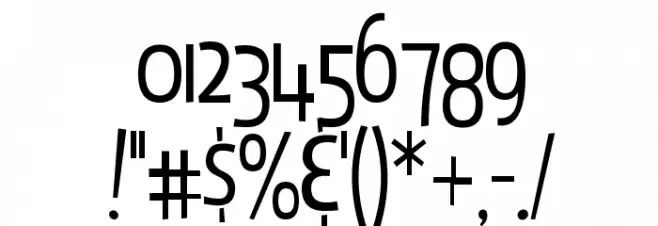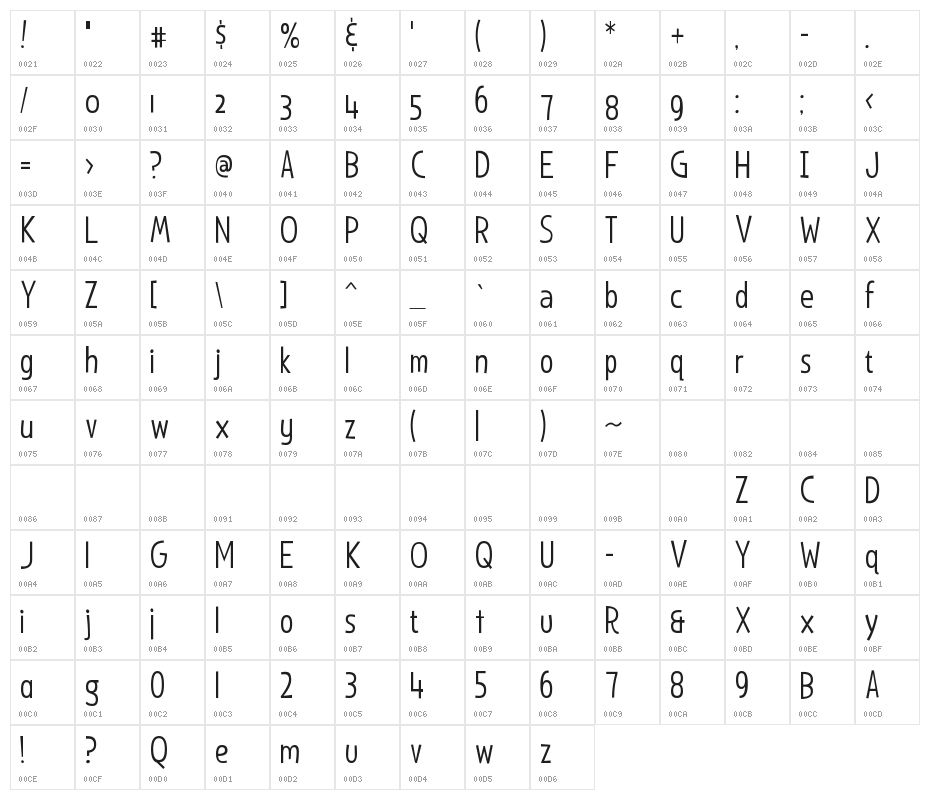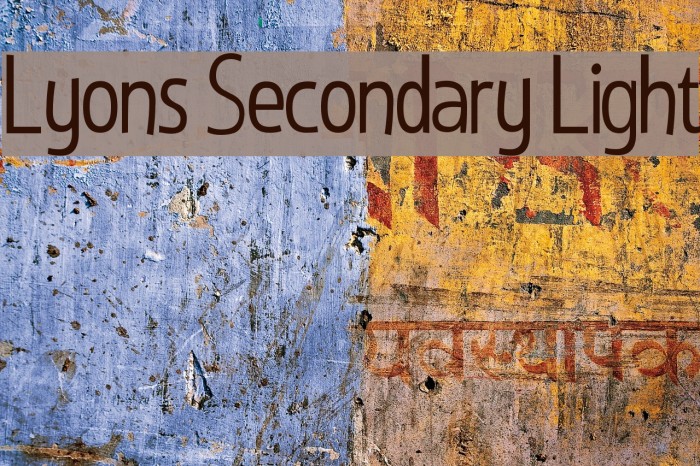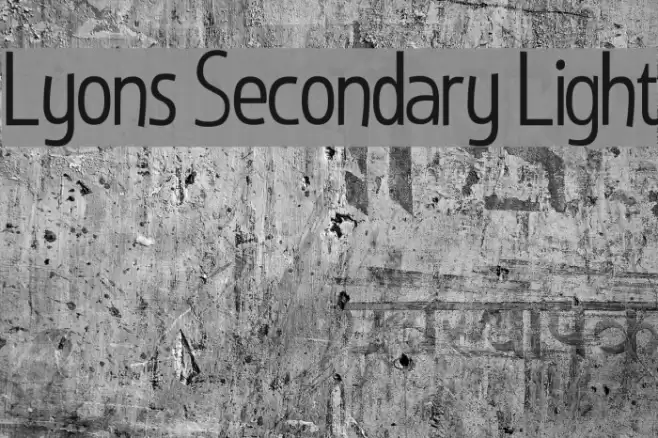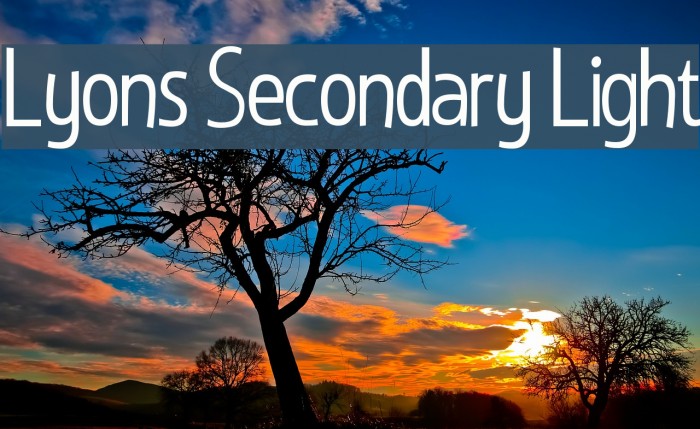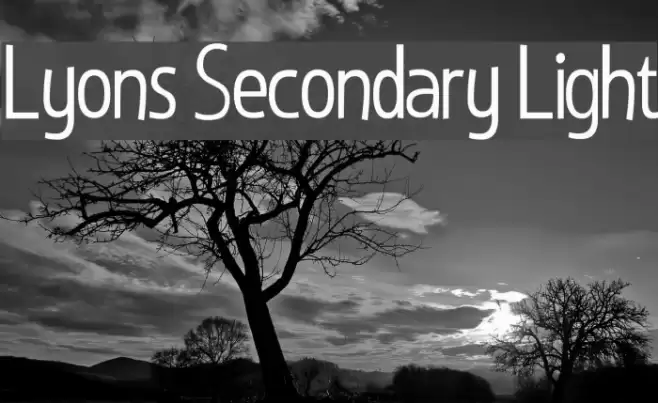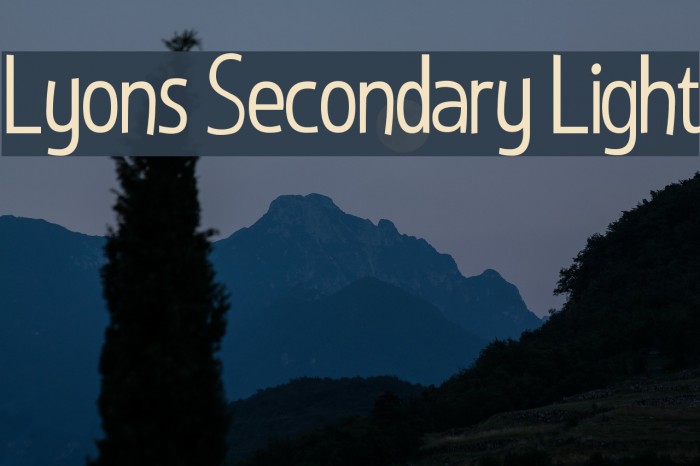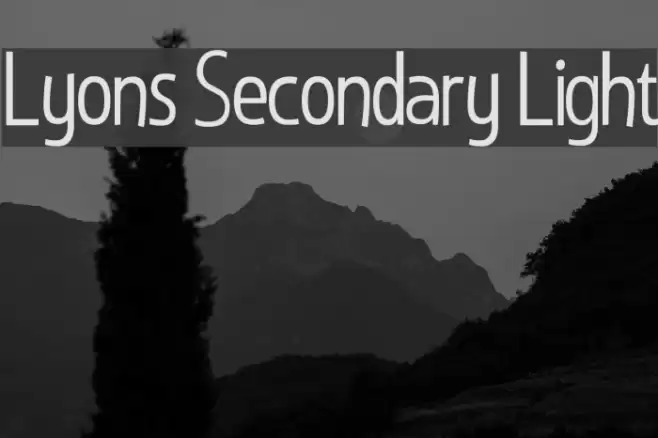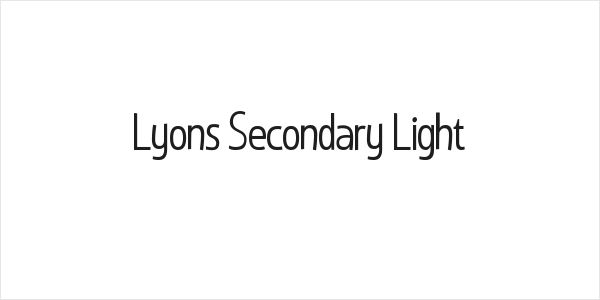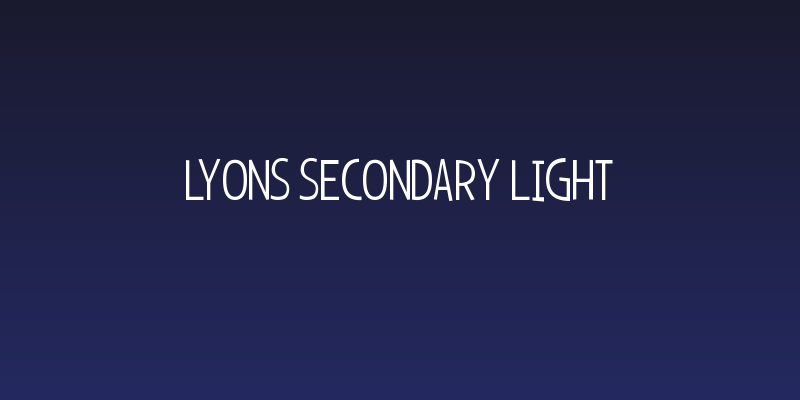
Lyons Secondary Light Font
Lyons Secondary Light Description
This font features a clean and modern sans-serif design with a light weight, offering a sleek and professional appearance. The characters are well-proportioned with a slight geometric influence, providing a balanced and harmonious look. The uppercase letters are tall and commanding, while the lowercase letters maintain a consistent and readable form. The numerals are distinct and clear, making them suitable for various applications. Special characters are included, enhancing the font's versatility. The overall style is contemporary, making it ideal for digital and print media.